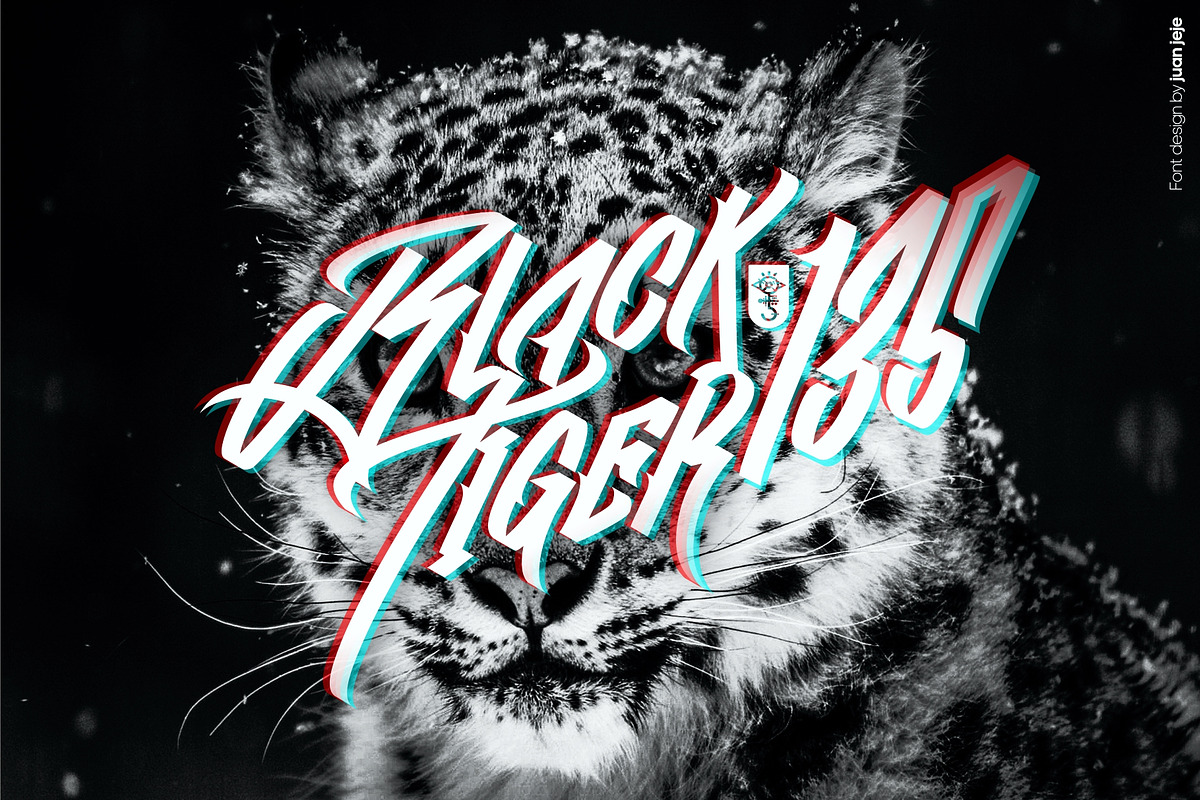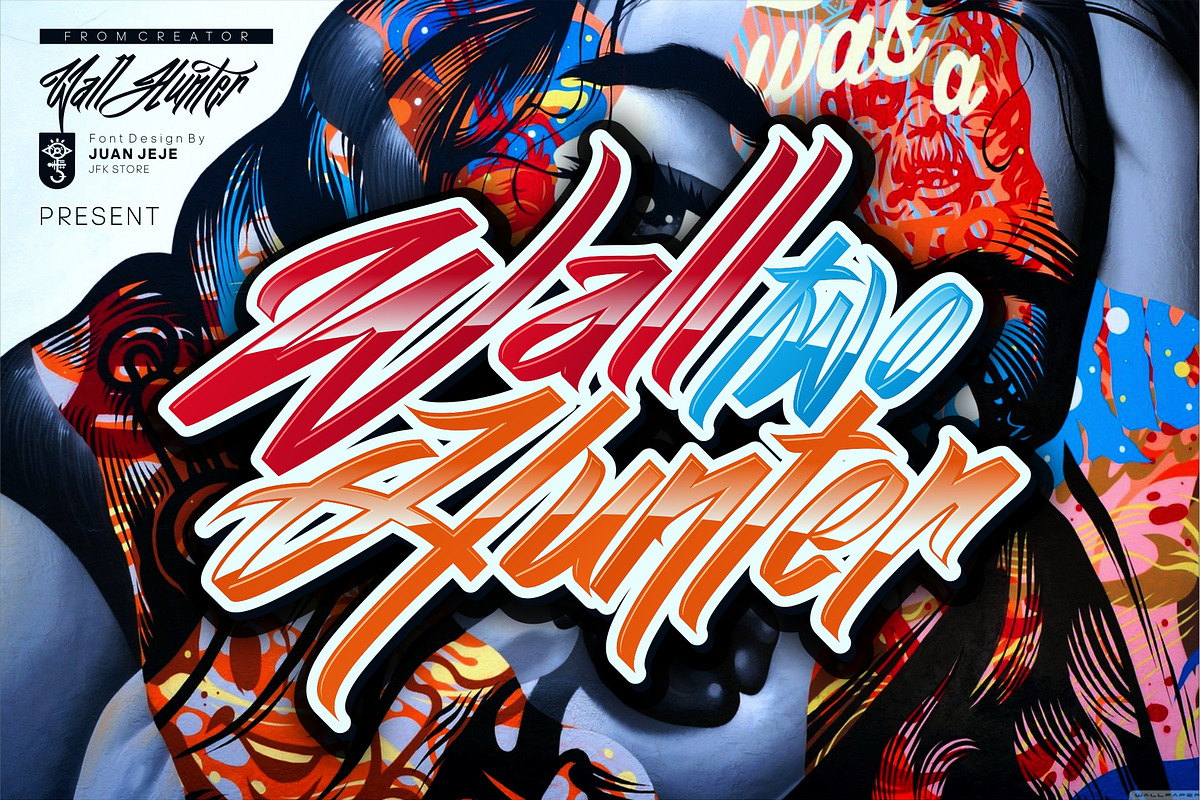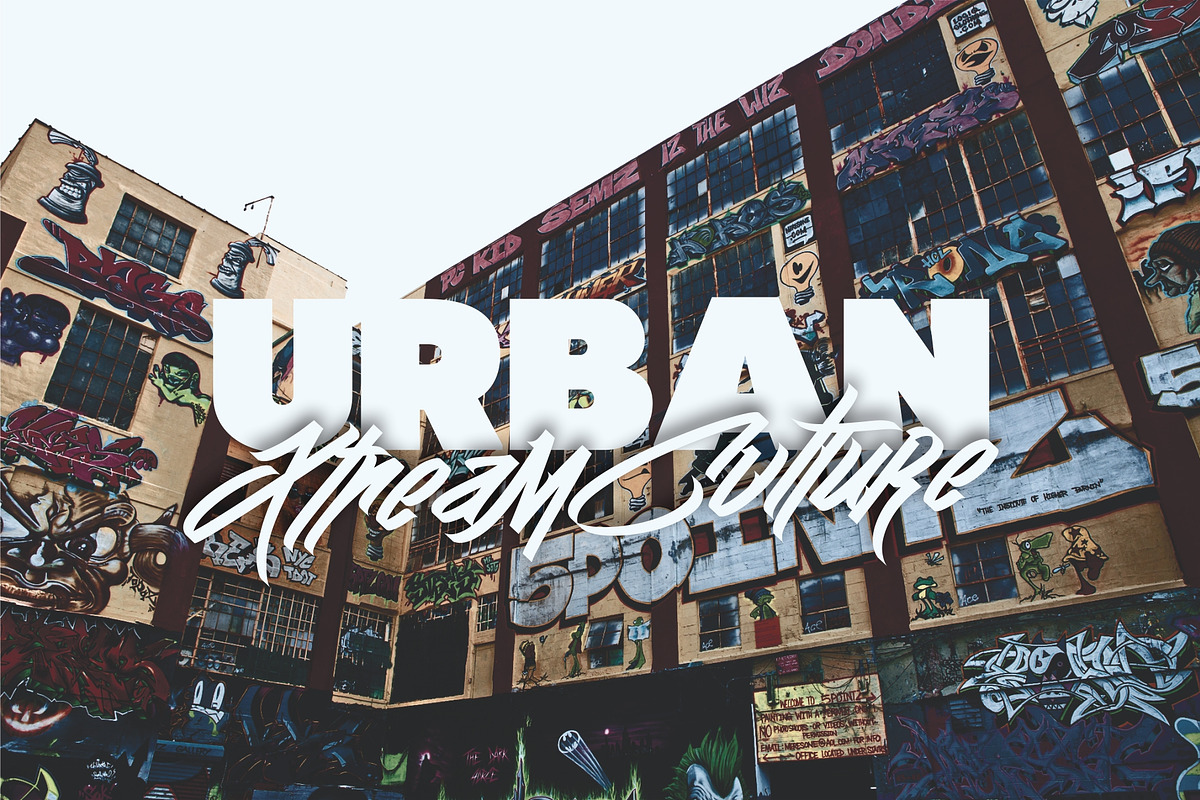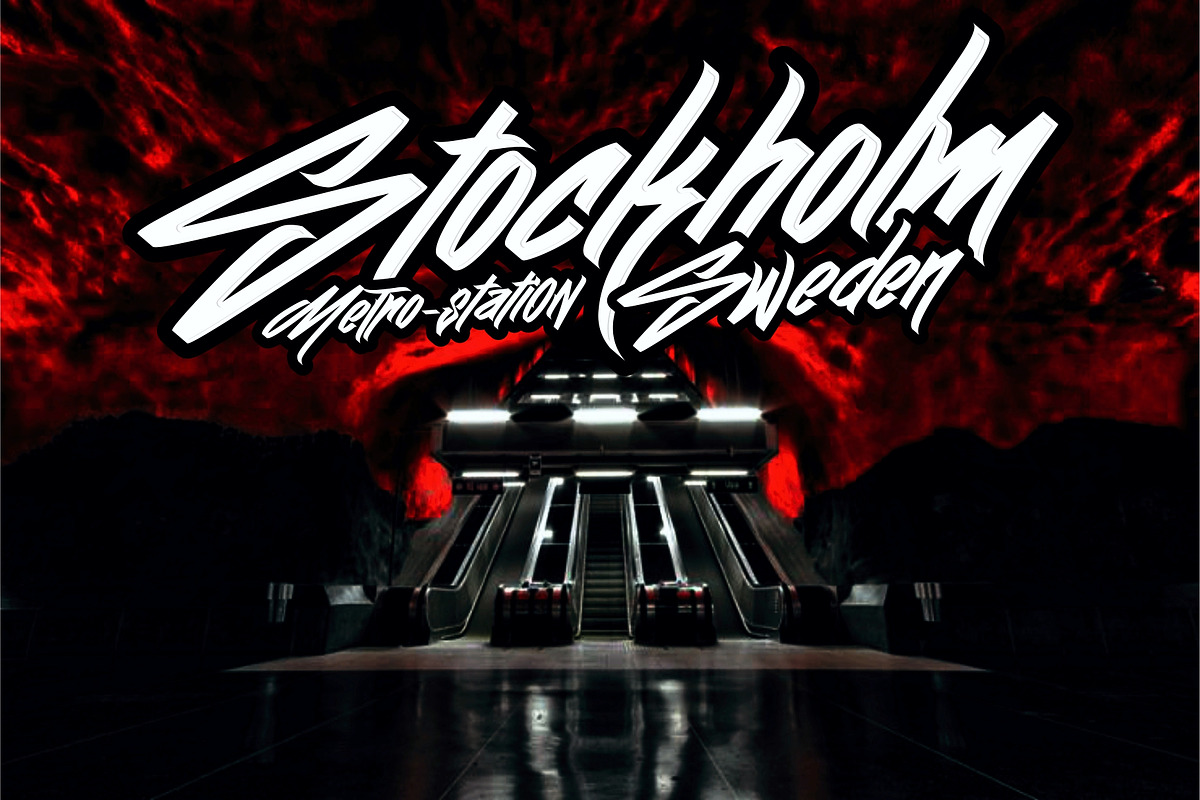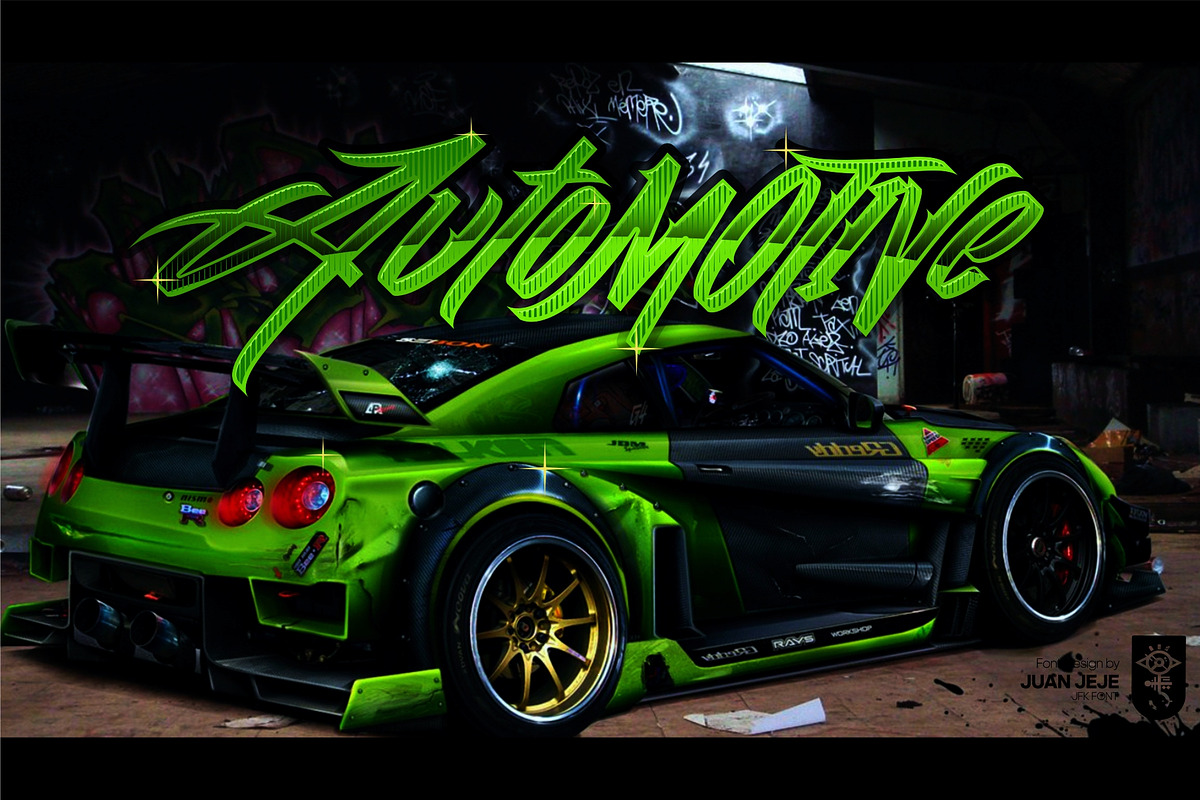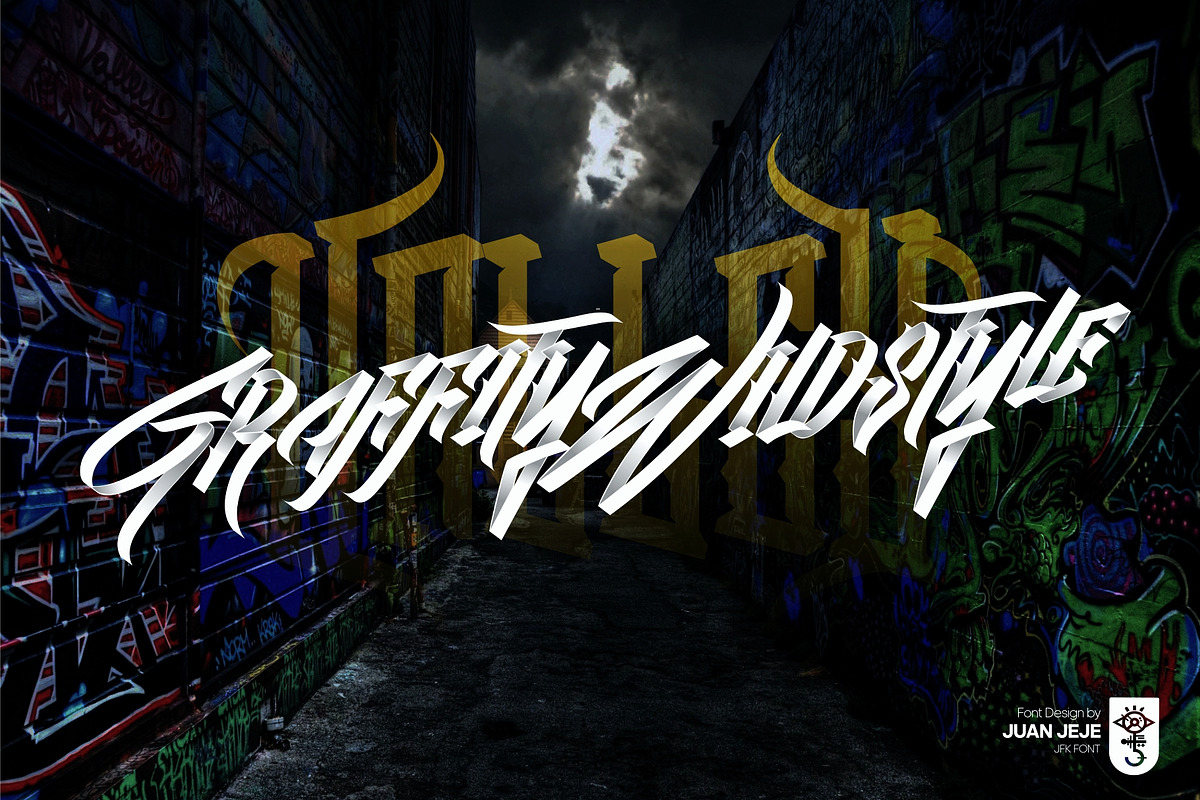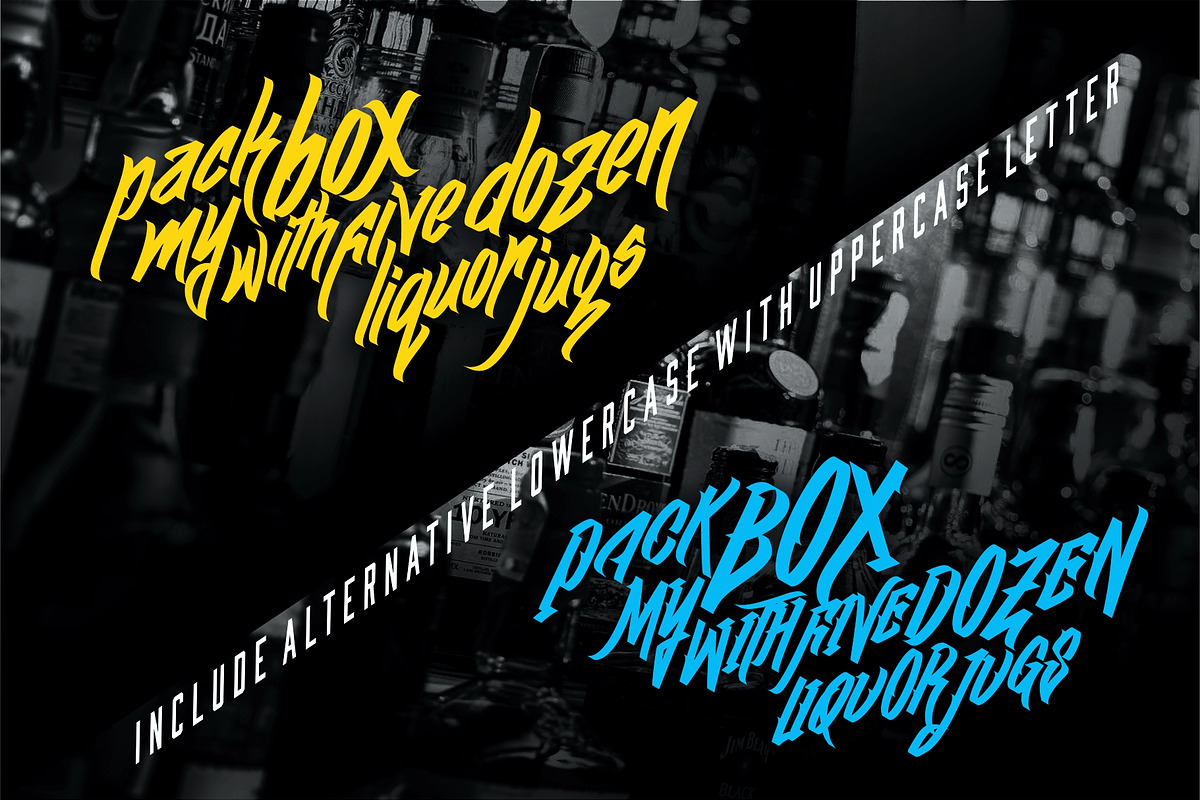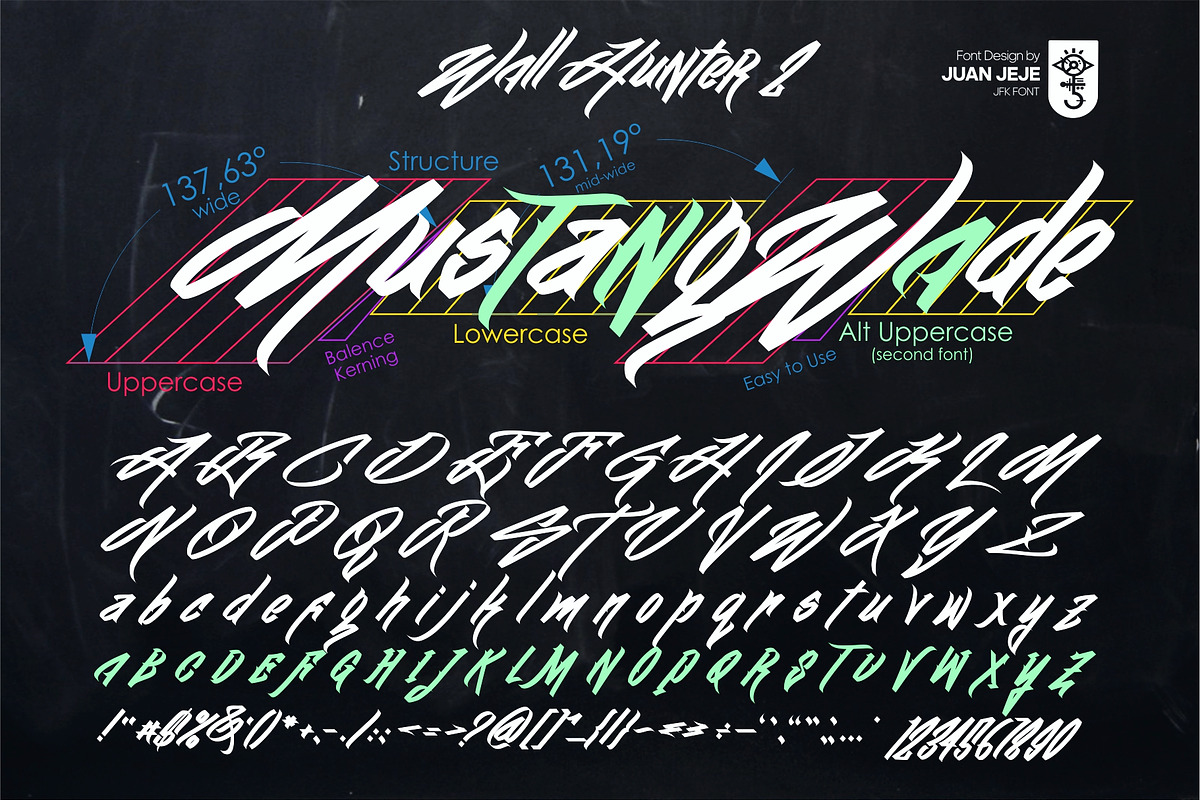
Wall Hunter II | Graffiti Tag Fonts
Wall Hunter Two ia an new combination Tagging Graffiti, still inspired by street artist around the world
structure in fine curve with upercase and lowercase have different degrees of size but still synchronized make some artistic font and good modification for best part.
NOW!!! Update new Alternative Lowercase with uppercase letter (Wall Hunter II Alt Low .otf)